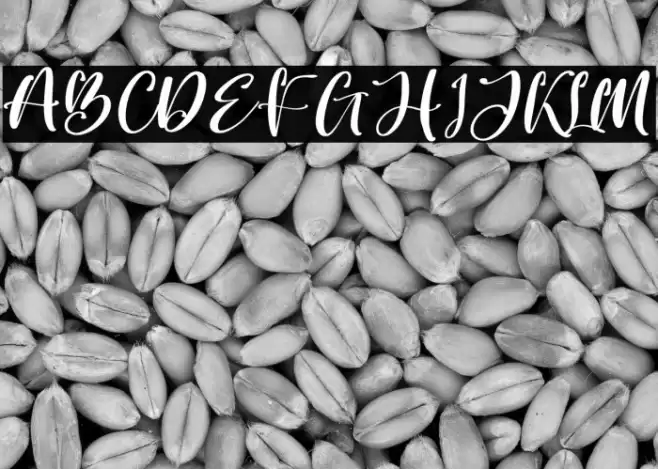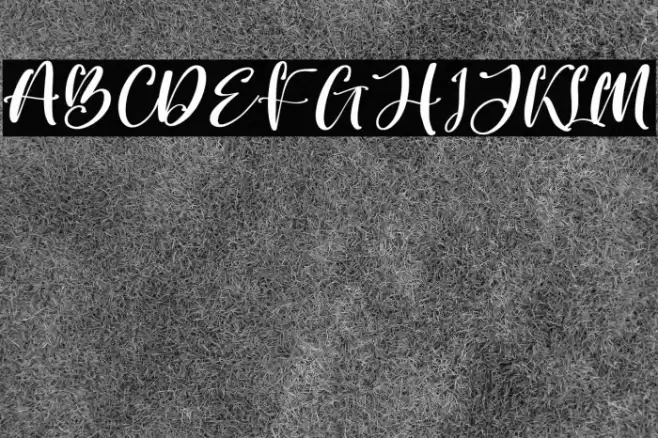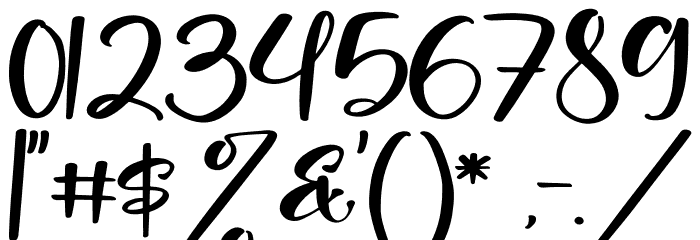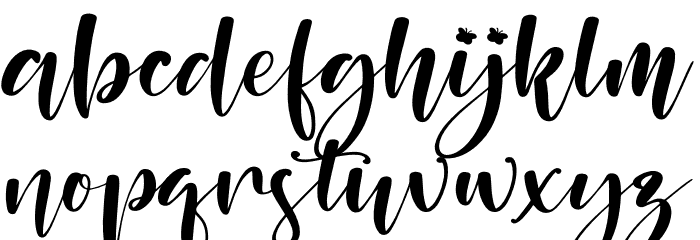
Better Spine Font
Better Spine Description
This font features a dynamic and expressive script style, characterized by its fluid, cursive letterforms. The uppercase letters are bold and sweeping, with elegant loops and flourishes that give a sense of movement and grace. The lowercase letters maintain a consistent flow, with some characters featuring unique embellishments that add personality. The numerals are equally stylish, with a playful yet sophisticated appearance. Special characters are designed with the same attention to detail, ensuring a cohesive look across all glyphs. The overall impression is one of elegance and creativity, making it suitable for projects that require a touch of sophistication and flair.
- Font: Better Spine
- Proposed Projects: Ideal for wedding invitations, branding, greeting cards, and any project that requires a touch of elegance and creativity.
- Use Case: Logos, Headlines, Invitations